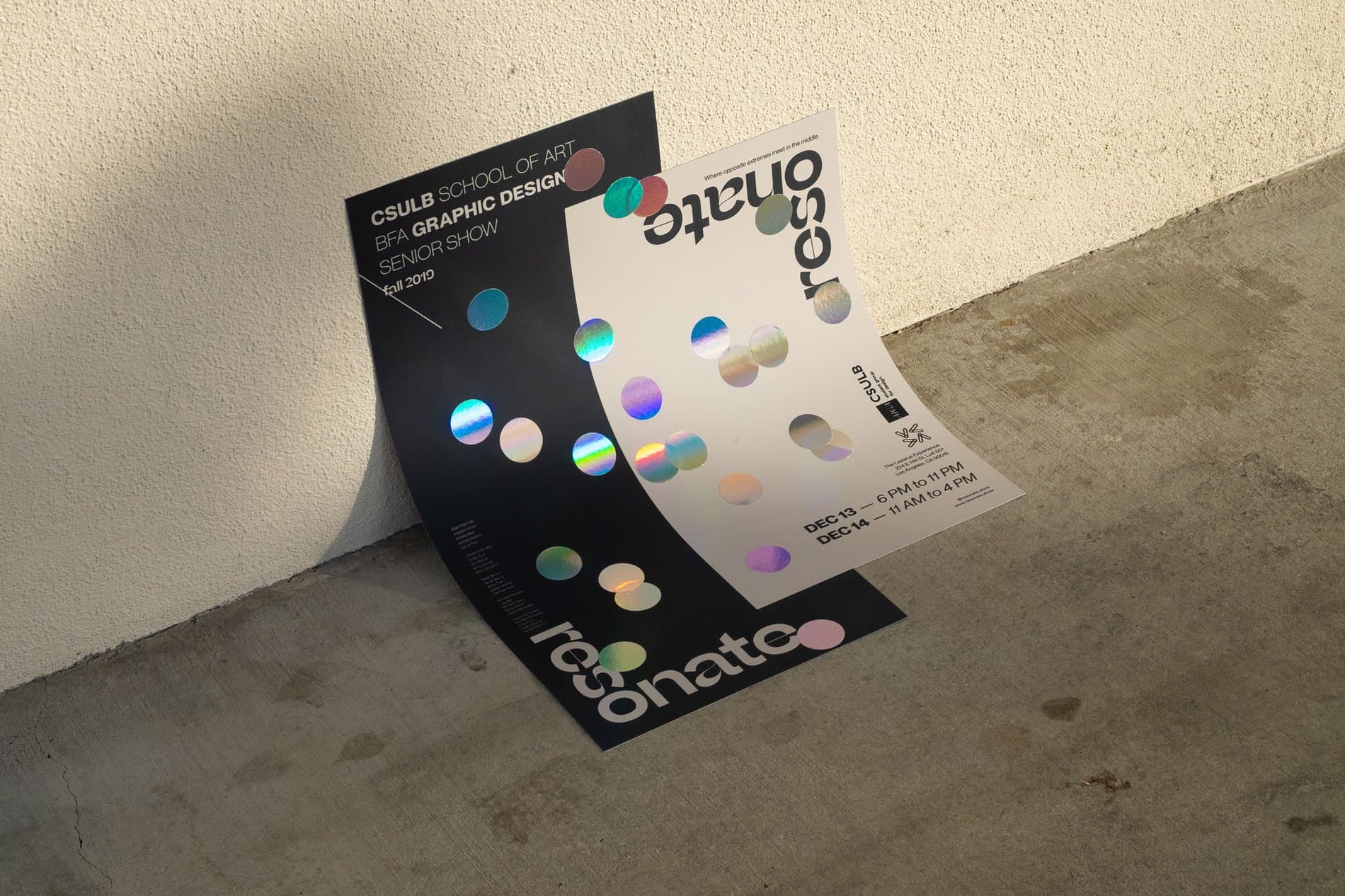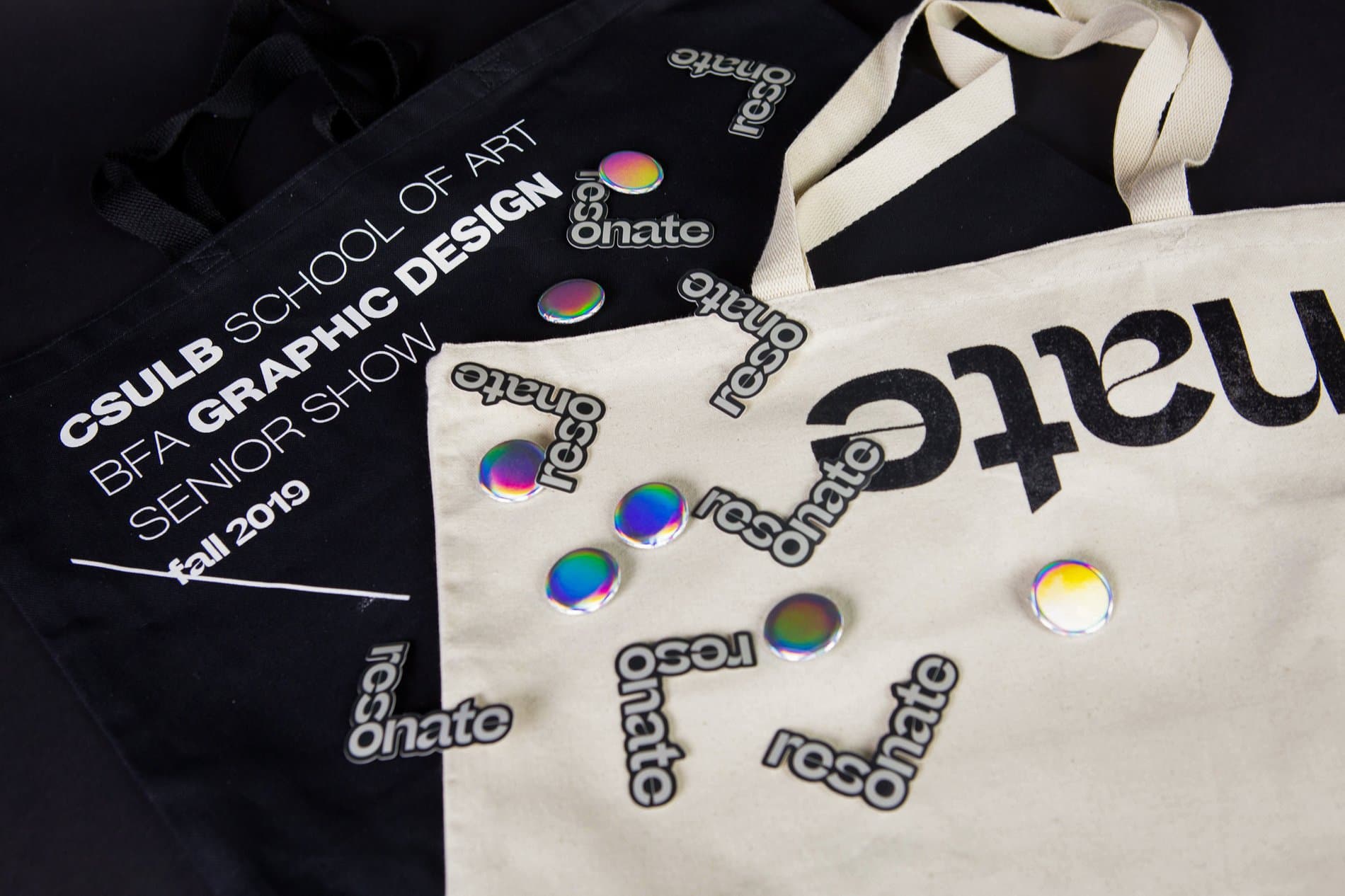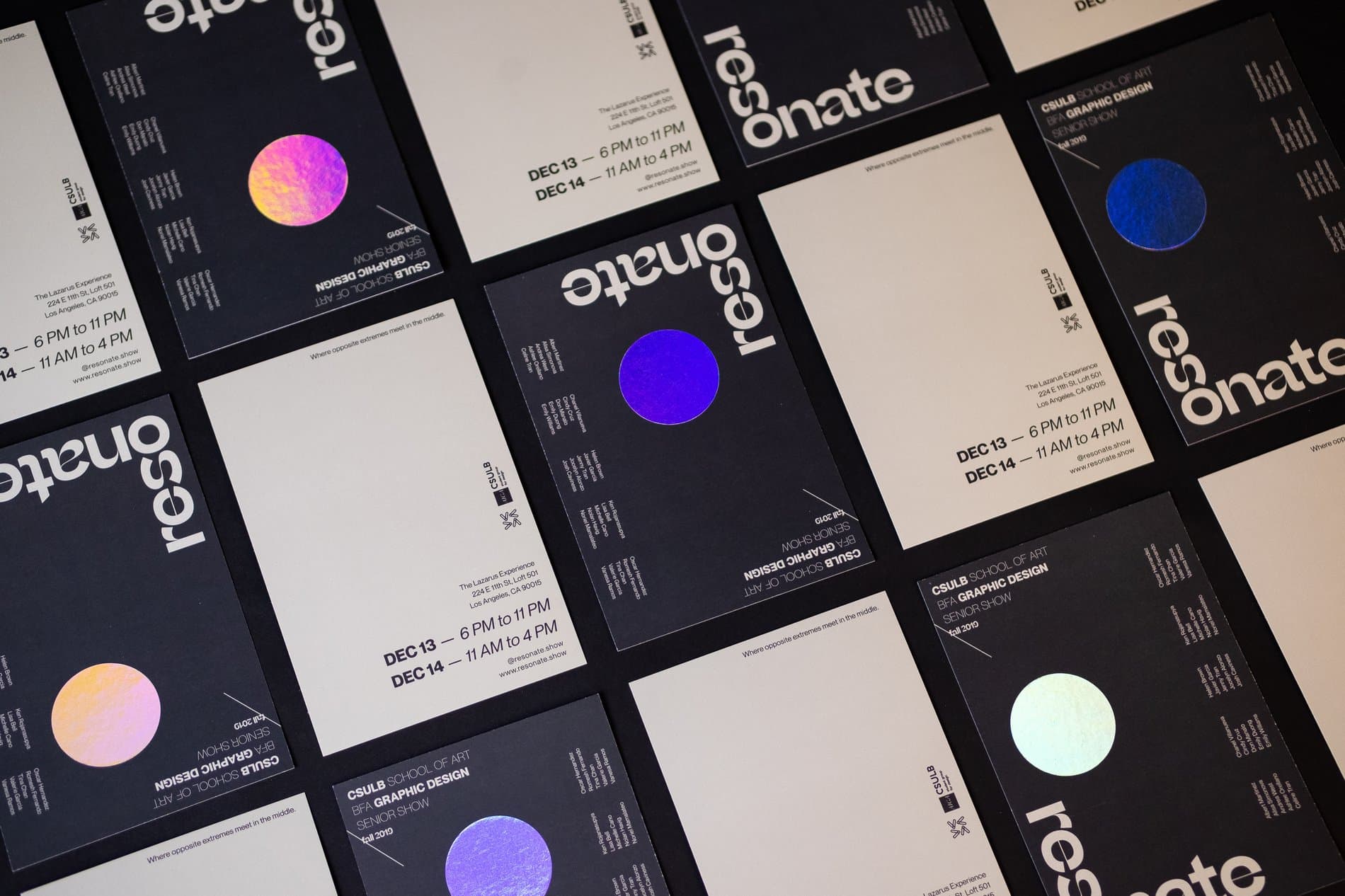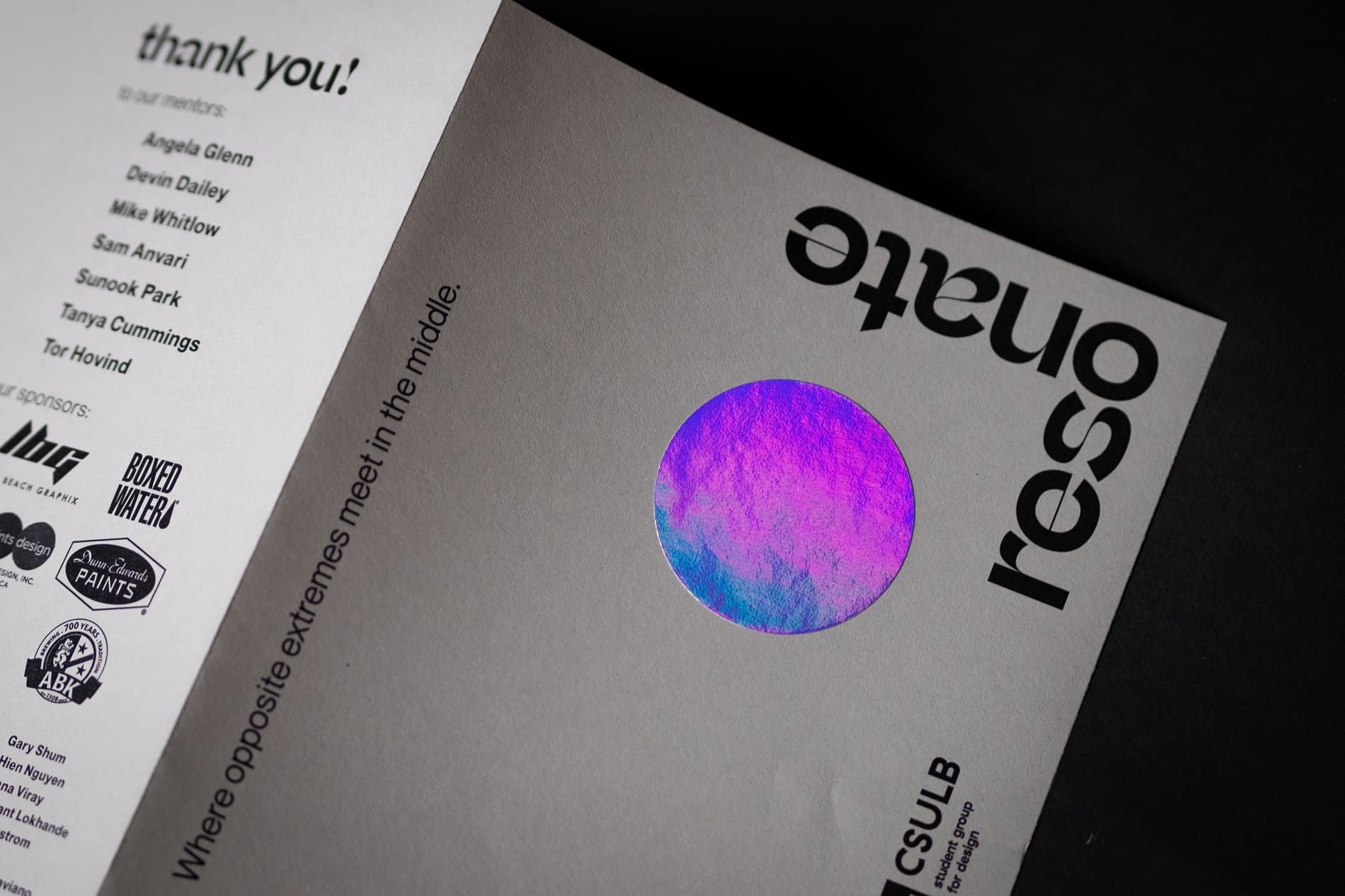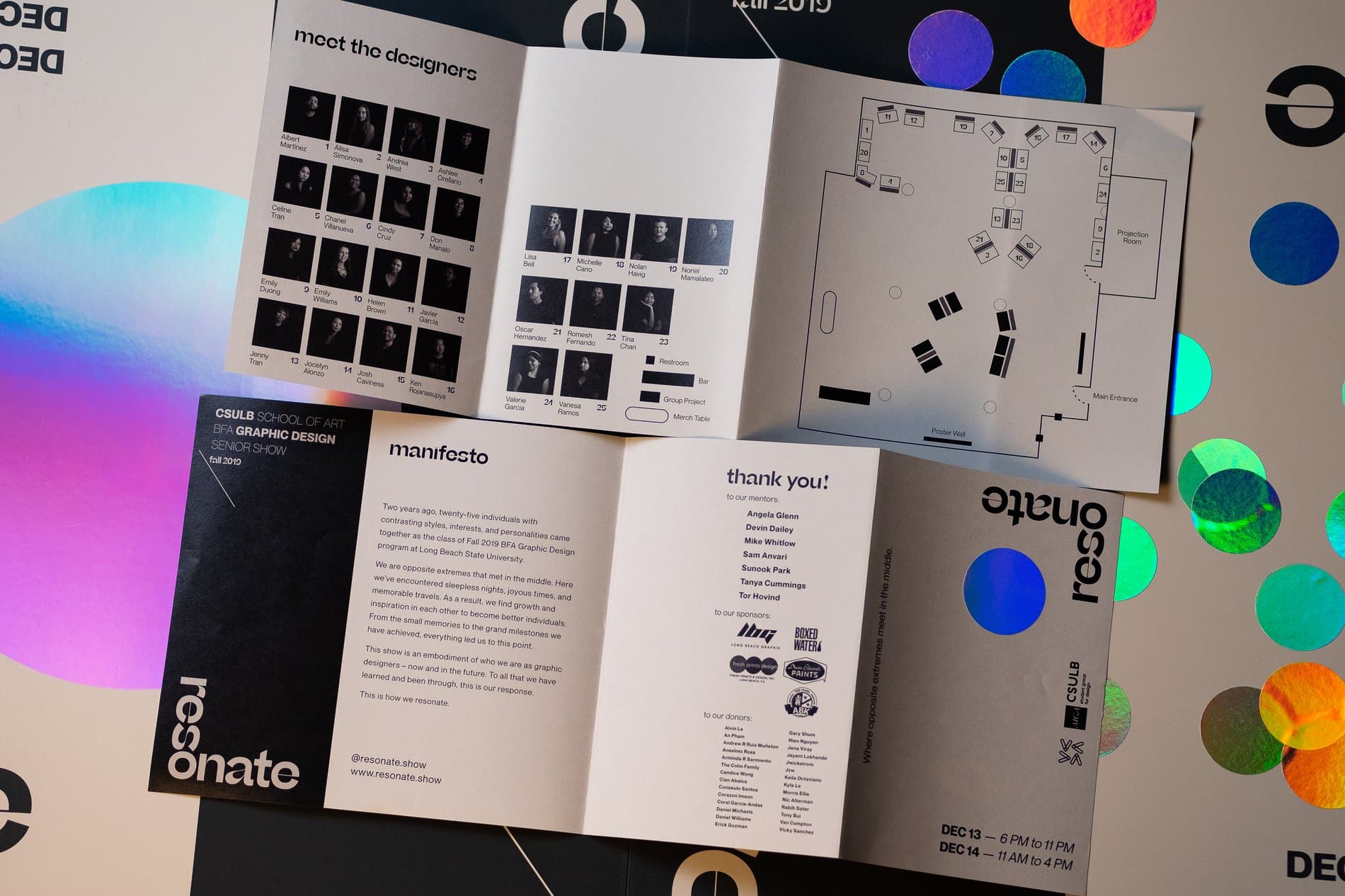
For CSULB’s BFA Graphic Design Show, the graduating seniors were unified by the word resonate. This theme culminates each of the students’ individual journeys, as well as the way they have been inspired by one another throughout their undergraduate design education. For the show’s primary typeface, the design team chose Beatrice Display. We chatted with them to learn more about the show and the design process.
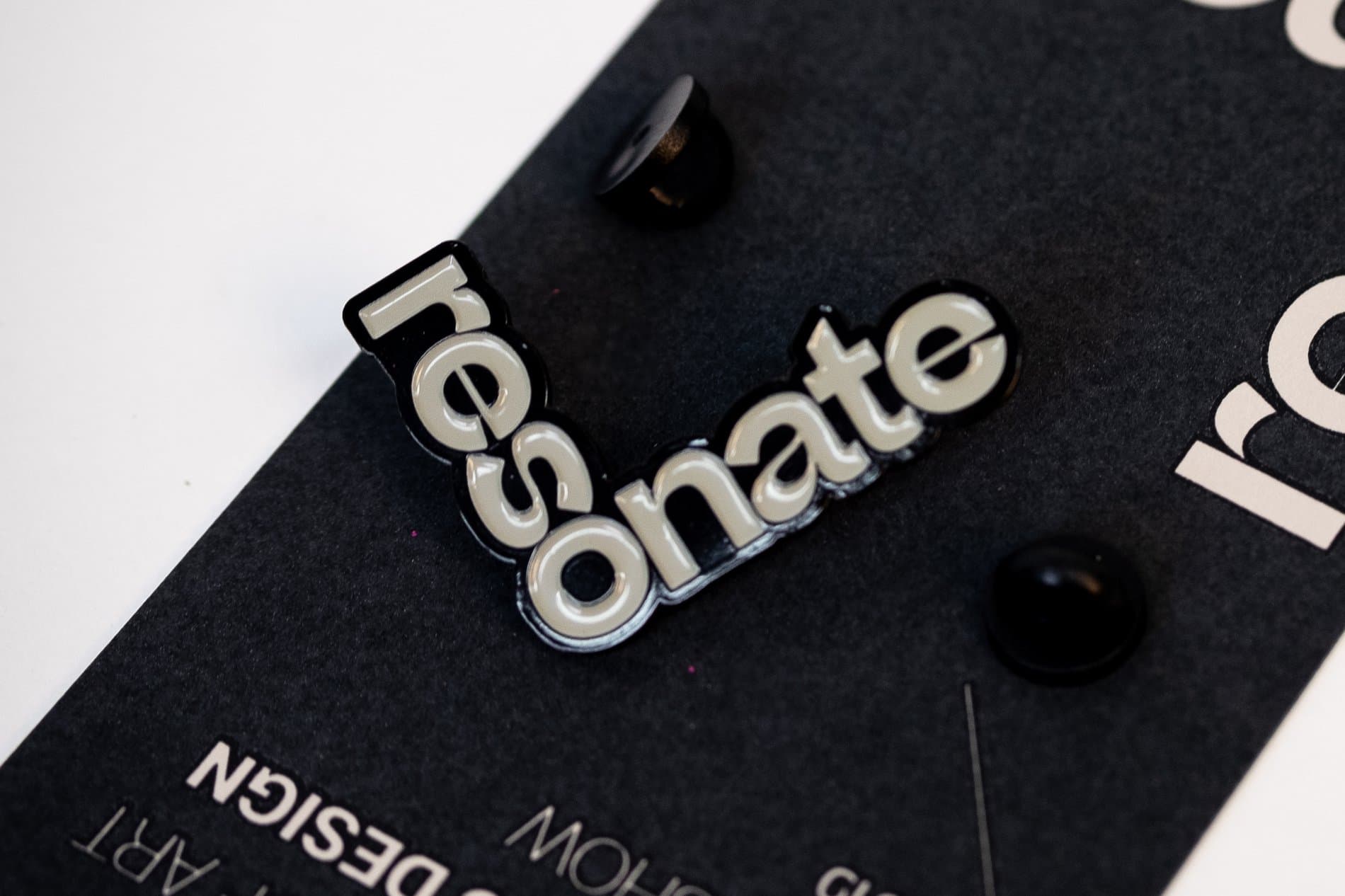
Could you tell us more about your show and the concept “Resonate”?
Resonate show is the CSULB Graphic Design BFA Senior Show where our graduating class of Fall 2019 showcases the work that we’ve done throughout our time in the program. Our goals were to showcase ourselves as creative individuals to the professional world as well as to celebrate the growth and the end of our journey as students of the program.
To ‘resonate’ means to bounce back and forth between two places. In sound, it’s a prolonged response to something that caused things to vibrate. It’s being able to evoke emotions that are full and deep in character from one place to another. For us, Resonate is our response to the progress we’ve made throughout the two years in the BFA program, becoming the creative individuals we are today. It’s about how we are constantly inspired by each other, bouncing off of one another’s creativity. It is the place where we, as designers with individual styles and personalities, come together to collaborate – where opposite extremes meet in the middle.
How did you decide on your typefaces? How do they speak to the theme of the show?
We wanted our brand’s primary typeface to reflect our designers’ contrasting styles coming together. Beatrice Display speaks to our show perfectly with its high-contrast and experimental design. Upon finding its history, how it was created through exploring and combining various methodologies, built from the traditional into something new, our team agreed that it would be the hero typeface of our show.
Tell us more about your branding and creative direction process. What was it like developing an identity to capture a group of 25 students? What did you experiment with, and how does the final package fit together?
Since the show was entirely organized by our class, from raising funds to finding a suitable venue to planning out the whole event, we divided our members into different task teams. The branding team, consisting of eight members, executed the creative direction for the show.
It was challenging to design a system that would represent 25 diverse designers. From minimal to maximal, we had a wide range of personalities on the spectrum. With the chosen typeface and our concept of “resonate,” we experimented with a multitude of colorful gradients and contrasting elements. This was challenging, since there was not a specific color or gradient that would represent our spectrum of styles. Eventually, we decided on holographic vinyl. While the rest of the branding is dark and light grey duo-toned to represent the opposite extremes, the holographic was where we came together, with all of our different individualities, to ‘resonate’.
The first version of our poster has one circle to showcase us together as one. The second version has 25 smaller circles to showcase us being our own person while still being inspired by one another. As students, we have a small budget, but a lot of helping hands so we got holographic stickers and placed them by hand onto our posters, brochures, flyers, etc. This worked especially with our concept because the circle could be placed anywhere and still ‘resonate’ with the rest.
After finalizing our brand identity, the rest fell into place. Our peers have different specializations, which helped us speed through the process of designing our assets. While some led photography, others designed print layouts, or took charge of our show website, social media, etc. Since we went through all the challenges of fine-tuning the brand guidelines, the rest was just us enjoying the process and creating something we all love together.